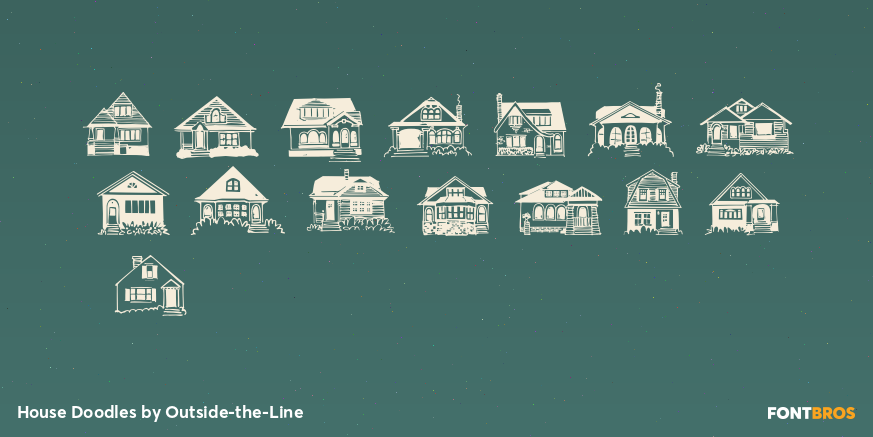
House Doodles
Font Family by Outside-the-Line
Little houses, little houses and none are the same. Cute cottages, beautiful bungalows, homey homes and darling dwellings to use to make ads, flyers, invitations for moving, change of address, open house parties, address stamps... Some have a lot of detail so use them at larger sizes. The less detailed for can be used in a smaller size.